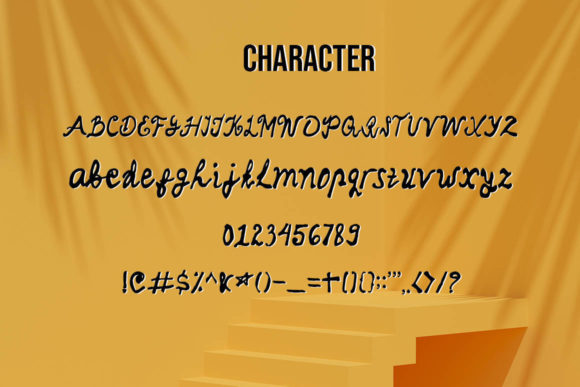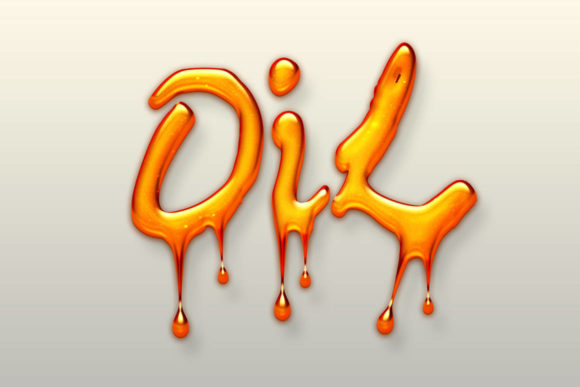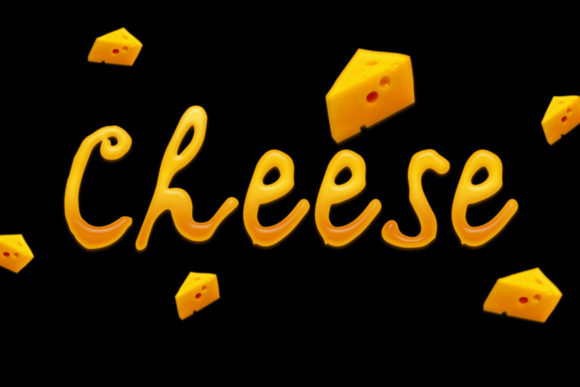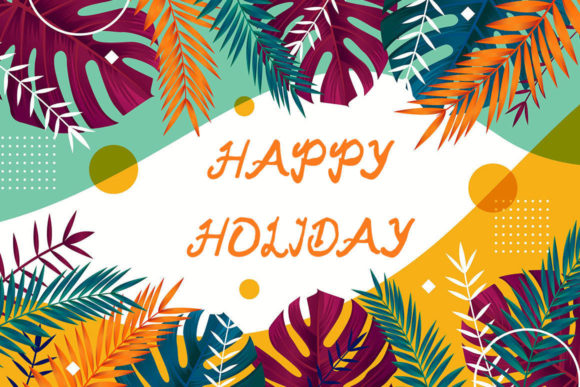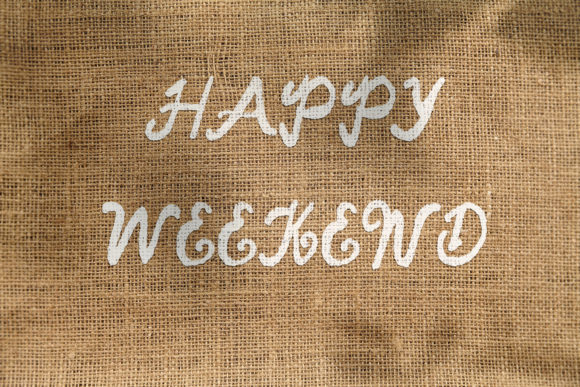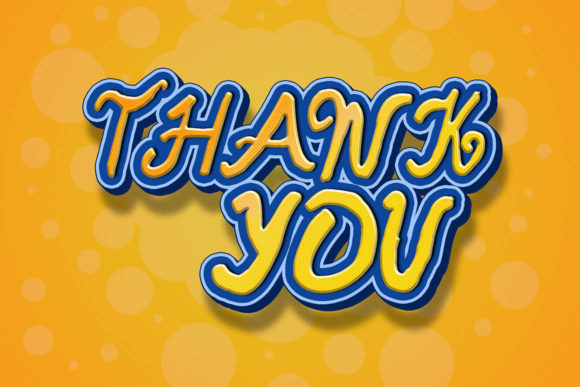
Discover the Elegance of Heldo Font: Elevate Your Designs to New Heights
Are you on the hunt for a font that exudes sophistication, elegance, and a touch of modern flair? Look no further than the Heldo Font, a stunning handwritten typeface that is sure to capture your heart. In this article, we’ll delve into the world of Heldo, exploring its unique characteristics, and how it can elevate your design projects to new heights.
The Story Behind Heldo Font
Heldo is an exquisite handwritten font, masterfully designed to become a true favorite among designers and crafters. Its creator has poured their heart and soul into crafting a typeface that seamlessly blends traditional calligraphic influences with a contemporary twist. The result is a font that feels both classic and fresh, perfect for a wide range of design applications.
What Makes Heldo Font So Special?
So, what sets Heldo apart from other fonts? Here are just a few of its standout features:
- Classy Calligraphic Influences: Heldo’s roots in traditional calligraphy are evident in its elegant strokes and refined letterforms. Each character is carefully crafted to evoke a sense of sophistication and luxury.
- Contemporary and Fresh: Despite its classic influences, Heldo feels surprisingly modern and fresh. Its unique blend of traditional and contemporary elements makes it perfect for designers looking to create something new and exciting.
- Versatility: Heldo is an incredibly versatile font, suitable for a wide range of design projects, from branding and packaging to wedding invitations and digital marketing materials.
How to Use Heldo Font in Your Designs
Ready to fall in love with Heldo and bring your projects to the highest levels? Here are some ideas to get you started:
- Branding and Logo Design: Use Heldo to create a sophisticated brand identity that exudes elegance and refinement.
- Wedding and Event Design: Add a touch of luxury to your wedding invitations, programs, and other event materials with Heldo’s beautiful calligraphic script.
- Digital Marketing: Use Heldo to create eye-catching social media graphics, email headers, and blog posts that stand out from the crowd.
- Packaging Design: Elevate your product packaging with Heldo’s elegant font, perfect for high-end products and luxury brands.
Tips and Tricks for Working with Heldo Font
To get the most out of Heldo, here are a few tips and tricks to keep in mind:
- Pair it with a Sans Serif: Combine Heldo with a clean sans serif font to create a striking contrast and add visual interest to your designs.
- Experiment with Colors: Heldo looks stunning in a range of colors, from rich jewel tones to soft pastels. Don’t be afraid to experiment and find the perfect hue for your design.
- Play with Ligatures: Heldo features beautiful ligatures that can add an extra touch of elegance to your designs. Experiment with different ligature combinations to find the perfect fit.
In conclusion, Heldo Font is a true gem in the world of typography. Its unique blend of traditional calligraphic influences and contemporary flair makes it the perfect choice for designers and crafters looking to elevate their projects to new heights. Whether you’re working on a branding campaign, wedding design, or digital marketing project, Heldo is sure to impress. So why wait? Fall in love with Heldo and bring your designs to life in a whole new way.